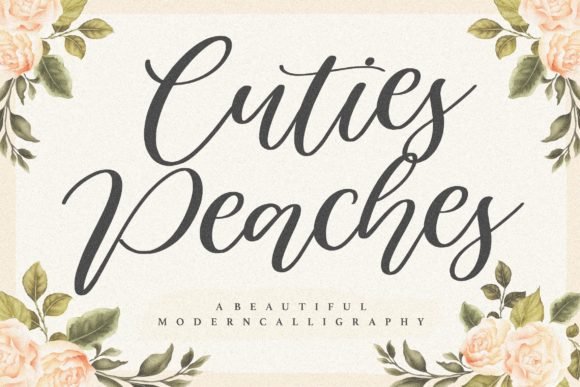
Introduction to Cuties Peaches Font
Cuties Peaches is an incredibly distinct, delicate and timeless handwritten font.
Key Features of Cuties Peaches Font